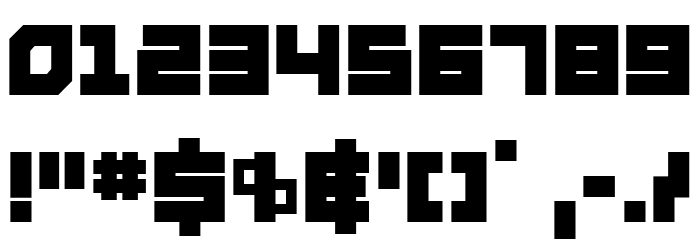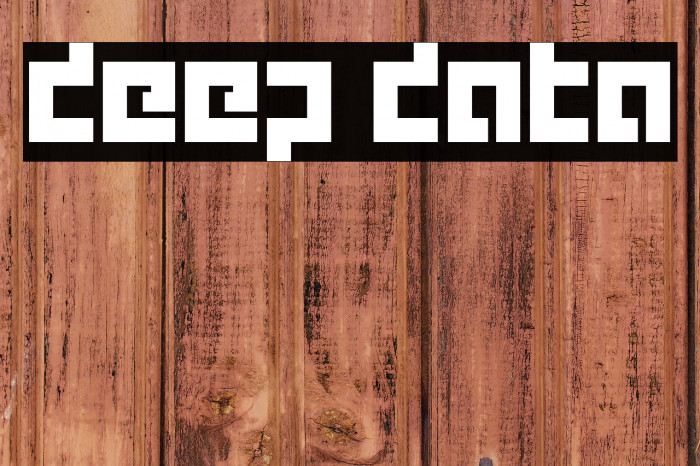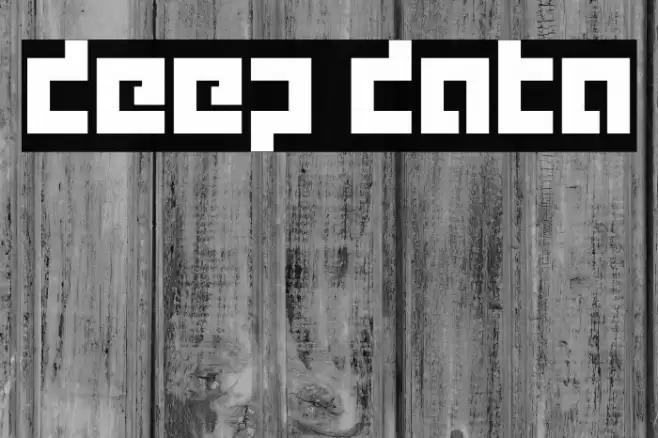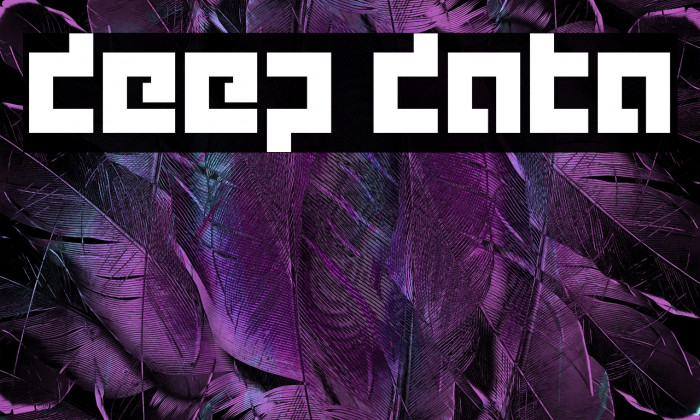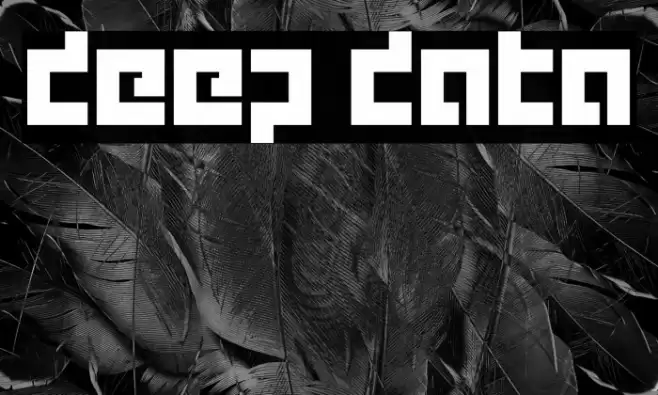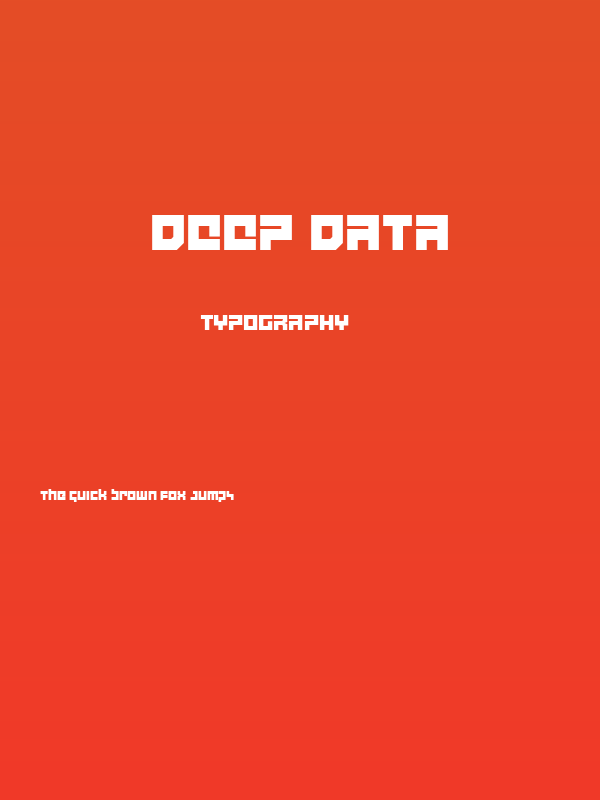
deep data Font
deep data Description
This font features a bold, geometric design with a distinctly modern and digital aesthetic. The characters are constructed with sharp angles and straight lines, giving them a blocky, pixelated appearance reminiscent of early computer graphics. The uppercase and lowercase letters maintain a consistent style, with minimal differentiation in height, contributing to a uniform look. The numerals and special characters follow the same design principles, ensuring visual coherence across all elements. The font's strong, impactful presence makes it suitable for attention-grabbing applications.
| Proposed Projects | Ideal for digital art, video game design, technology branding, and futuristic-themed projects. |